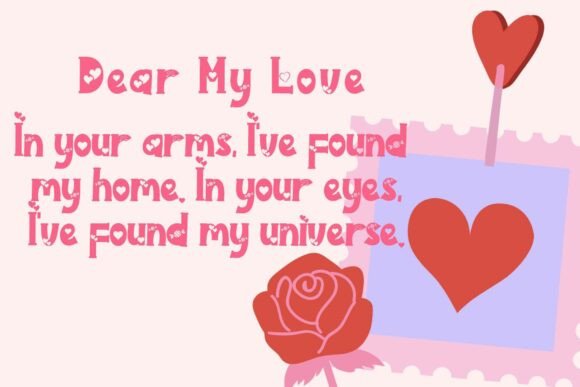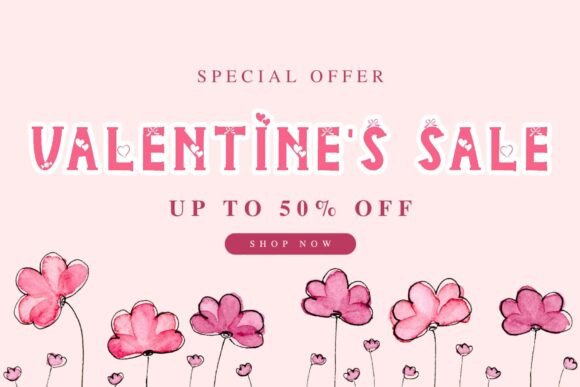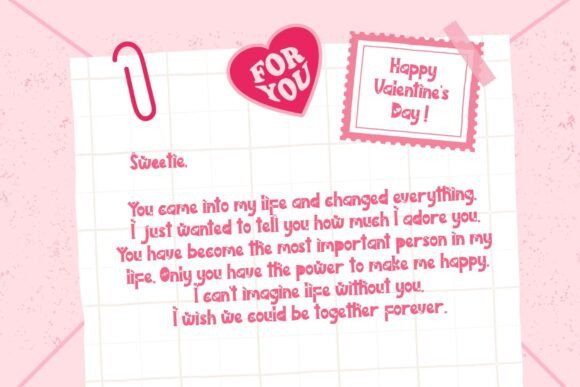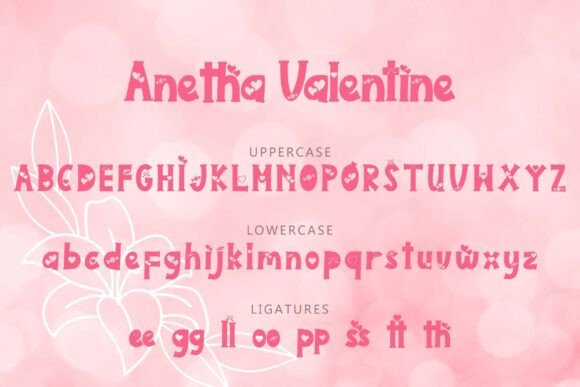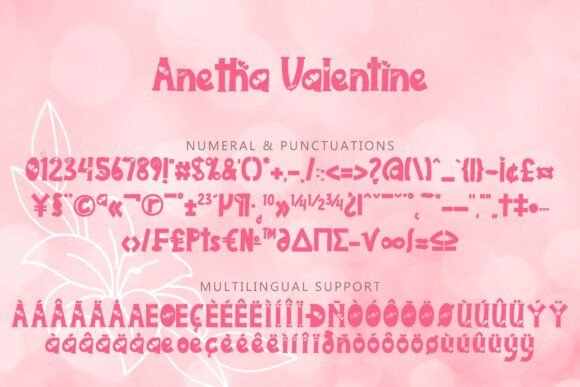
The Sweetest Font for Your Next Design Project: Anetha Valentine
I’ll never forget the time I was working on a Valentine’s Day card design for a client, and I just couldn’t find the perfect font. I scrolled through page after page of Google Fonts, but nothing seemed quite right. That was until I stumbled upon Anetha Valentine – a cute and sweet display font that instantly captured the essence of the holiday. In this article, I’ll share my experience with this charming font, its features, and how to make the most of it in your designs.
A Personal Review of Anetha Valentine
- ✨ Cute and playful design: The font is decorated with hearts, ribbons, and candies, making it perfect for festive occasions.
- ✅ Multilingual support: You can use Anetha Valentine for designs in various languages, which is a huge plus.
- 🎉 Comprehensive character set: The font includes capital letters, lowercase letters, ligatures, numbers, punctuation, and more.
While Anetha Valentine is an amazing font, there are a few things to keep in mind:
- ⚠️ Legibility at small sizes: As with many decorative fonts, Anetha Valentine can become difficult to read at small sizes. Use it for headlines or titles, and consider a simpler font for body text.
- 🤔 Limited use cases: While the font is versatile, it’s best suited for festive or celebratory designs. It might not be the best choice for more formal or professional projects.
The Story Behind Anetha Valentine
While I couldn’t find any information on the font’s creator, I like to imagine that Anetha Valentine was designed by a talented artist who loves celebrating life’s special moments. Perhaps they’re a romantic at heart, who wanted to create a font that would bring joy and whimsy to designs. Whatever the inspiration, Anetha Valentine is sure to delight your audience.
Q: What occasions is Anetha Valentine best suited for?
A: Anetha Valentine is perfect for Valentine’s Day, Thanksgiving, Christmas, weddings, birthdays, and other celebrations.
Q: Is Anetha Valentine available in multiple languages?
A: Yes, Anetha Valentine supports multiple languages, making it a great choice for international designs.
Q: Can I use Anetha Valentine for both print and digital projects?
A: Absolutely! Anetha Valentine is versatile and can be used for both print and digital designs, such as social media graphics, invitations, or flyers.